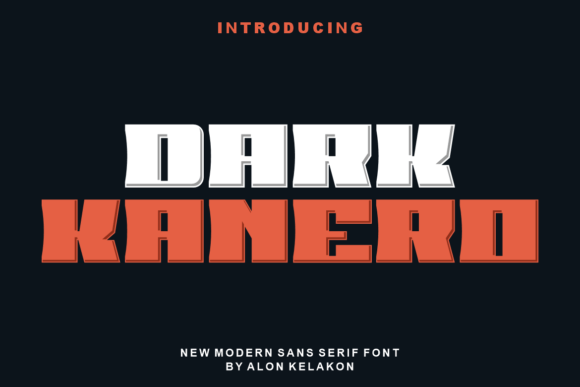
In a world where individuality and self-expression reign supreme, we present to you Dark Kanero, a groundbreaking Sans Serif display font that will captivate your senses and leave an unforgettable impact on your creative endeavors. Embark on a typographic journey like never before, where sharp angles and bold strokes dance in perfect harmony.
Indulge in a font that exudes confidence and sophistication, a font that demands attention and commands respect. Dark Kanero is not just a collection of letters and symbols; it's an extension of your personality, a reflection of your unique style and vision. With its striking presence, Dark Kanero effortlessly elevates your designs, transforming them into masterpieces that speak volumes.
Unleash your creativity and harness the power of Dark Kanero to create designs that resonate with your audience. Its versatility knows no bounds, making it an ideal choice for logos, branding, posters, social media graphics, and any project that demands a bold and captivating statement.